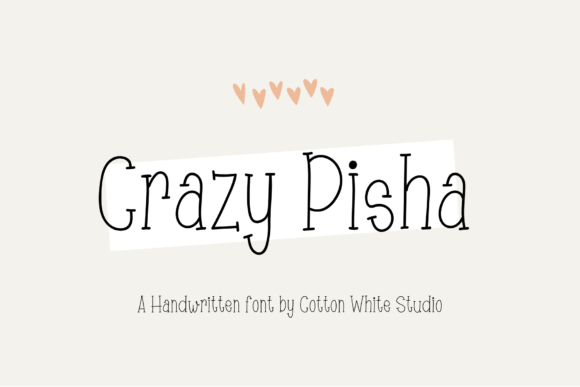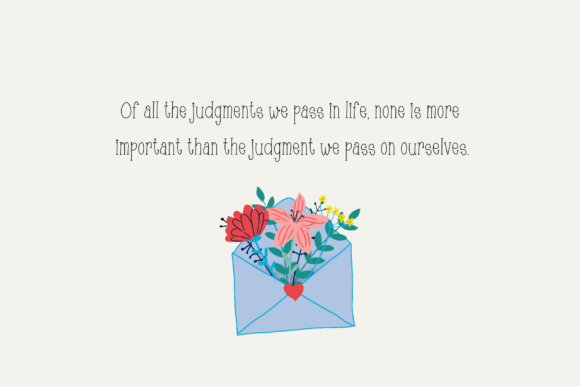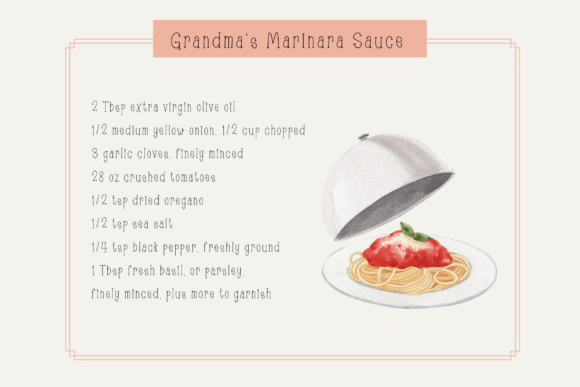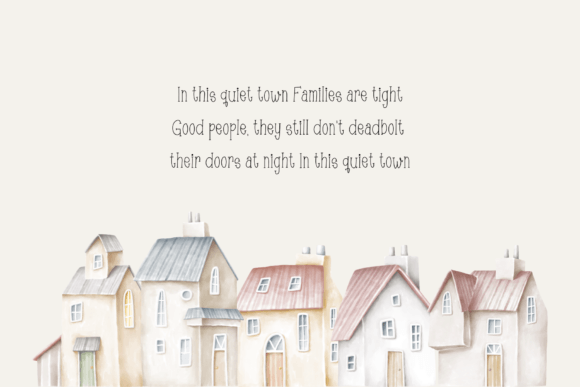
About Crazy Pisha Font
Crazy Pisha is a handwritten font perfect for digital notes, planners, logos, web design, notebooks, journals, labels, blogs, quotes, greeting cards, tea towels, apparel, pillows, mugs, toys, posters, baby clothing, picture books and so much more…basically anything that requires a handwritten look!